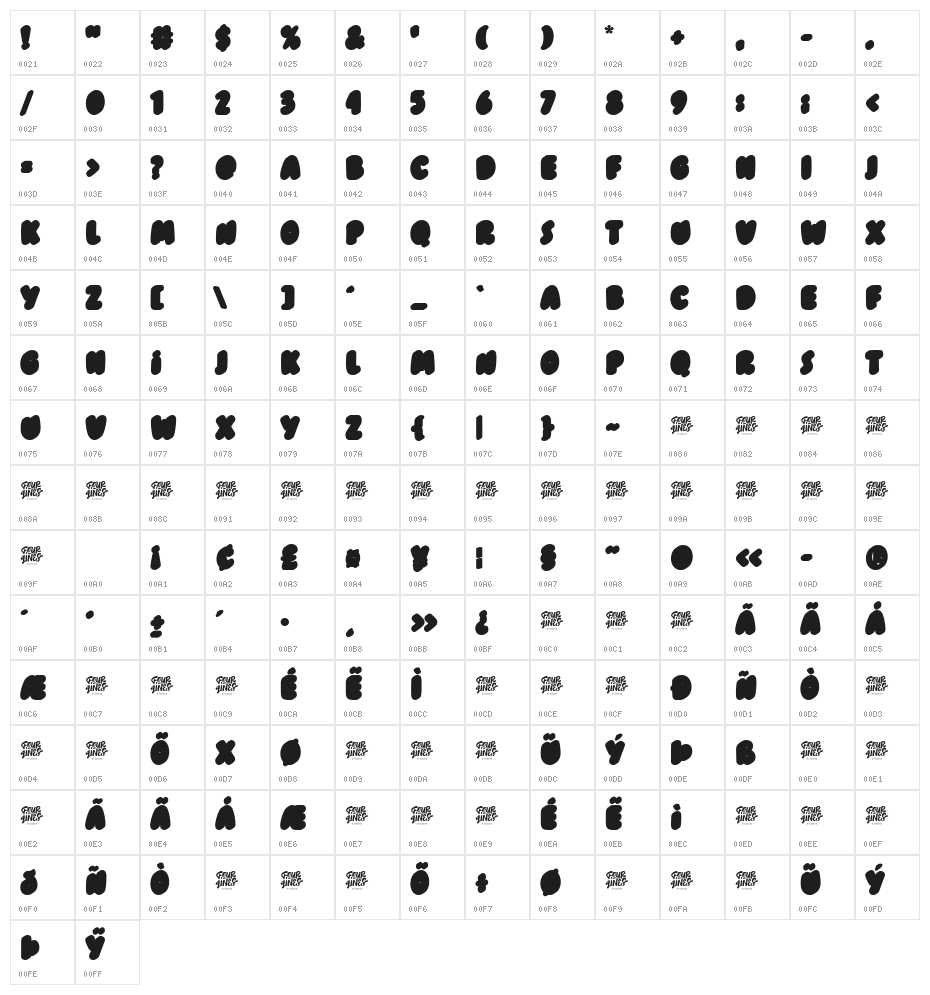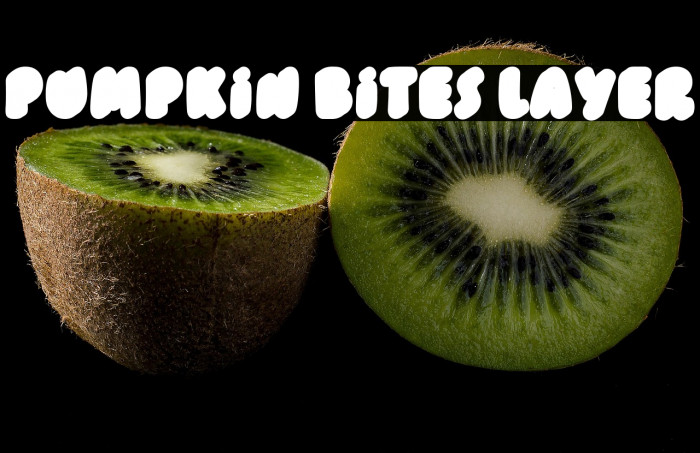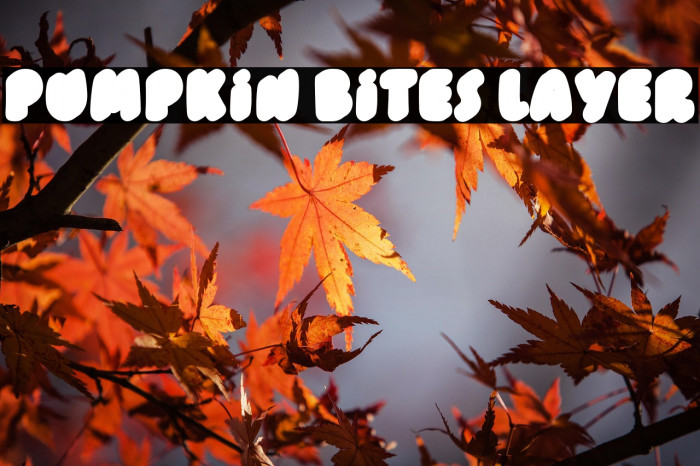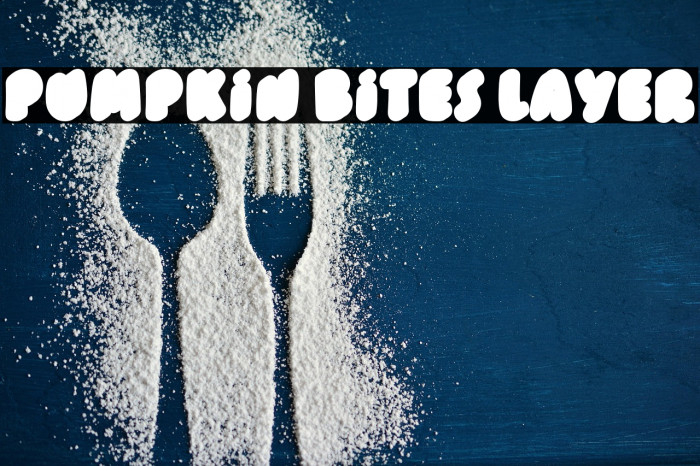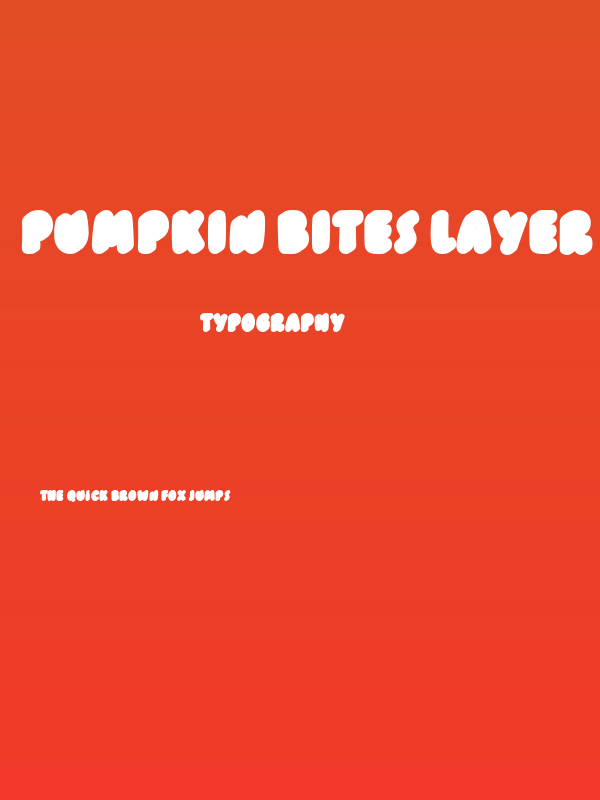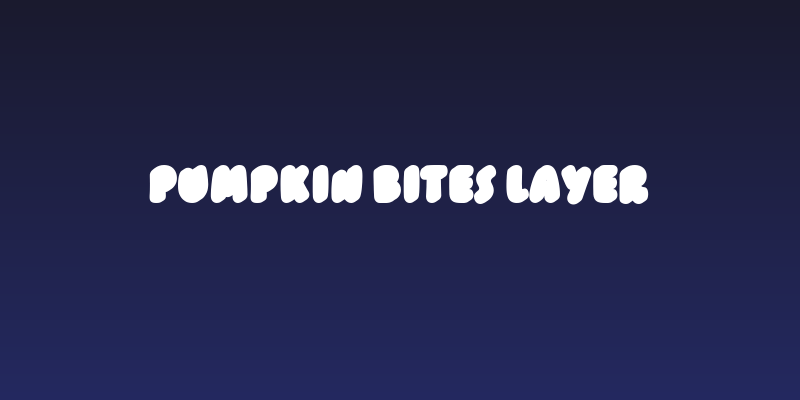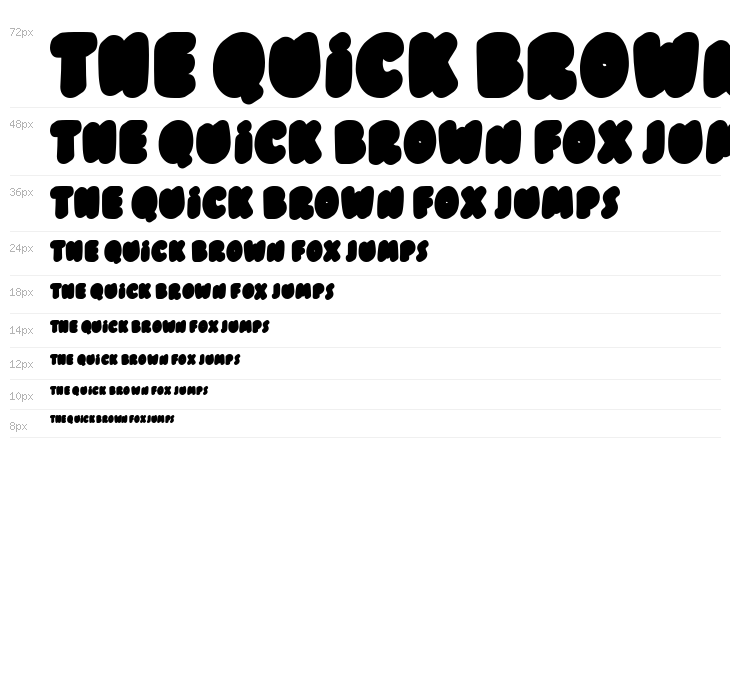
Pumpkin Bites Layer Font
This playful and bold font features rounded, bubble-like characters that exude a sense of fun and whimsy. The thick, uniform strokes create a strong visual impact, making it ideal for eye-catching designs. Each letter is crafted with a smooth, flowing form that maintains consistency across both uppercase and lowercase alphabets. The numbers and special characters follow the same style, ensuring a cohesive look. This font's distinctive style is perfect for projects that require a touch of creativity and boldness.
| Proposed Projects | Ideal for children's books, playful branding, party invitations, and eye-catching posters. |